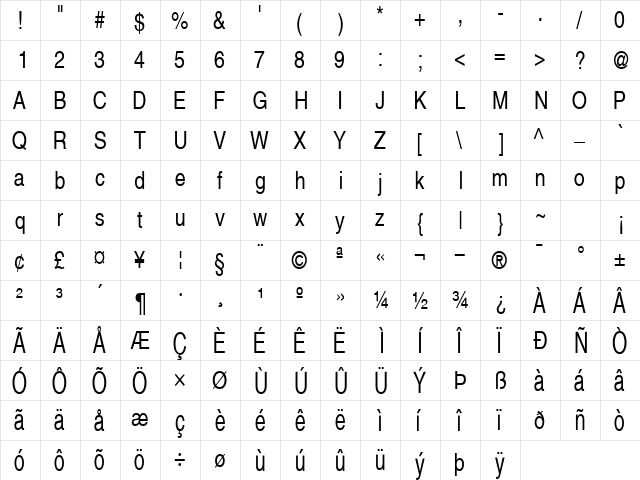
ContextSemiCondSSK Regular
Design Context for ContextSemiCondSSK Typeface
ContextSemiCondSSK offers clean, dependable letterforms without strong stylistic allegiance, making it a practical choice for designers who need flexibility. The condensed width makes it efficient for tight spaces without sacrificing legibility.